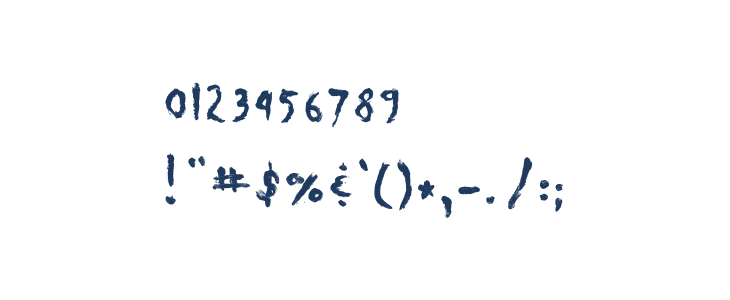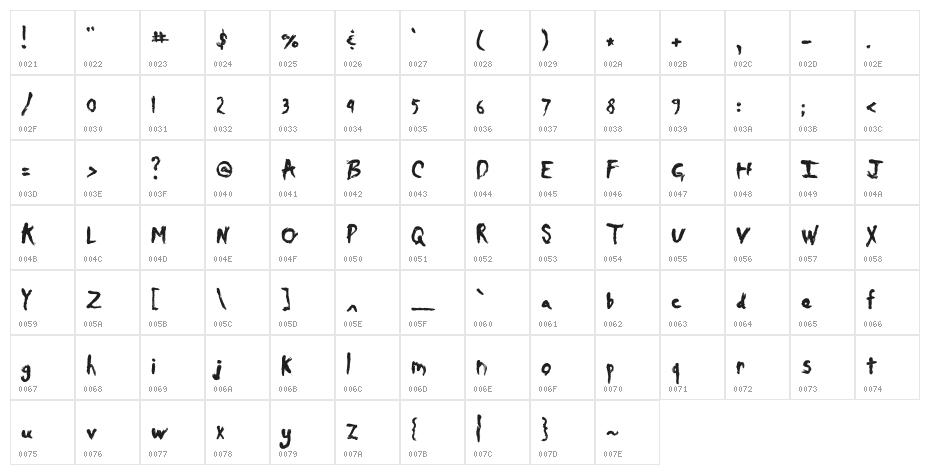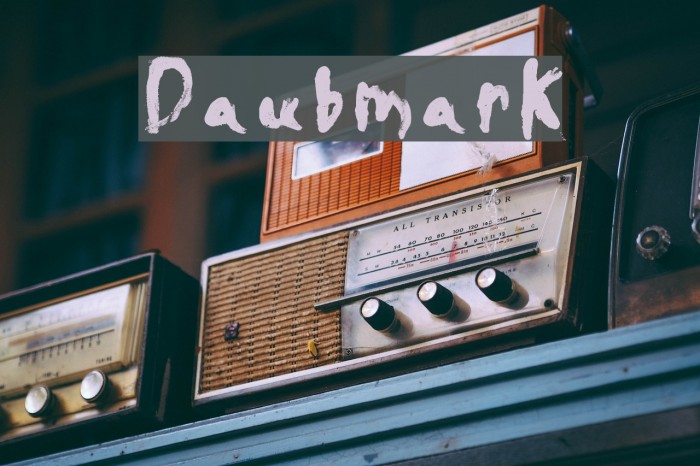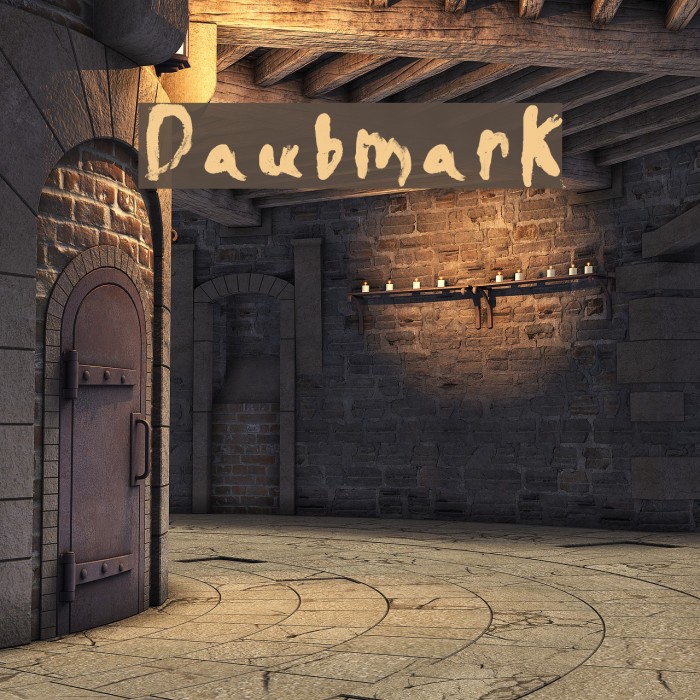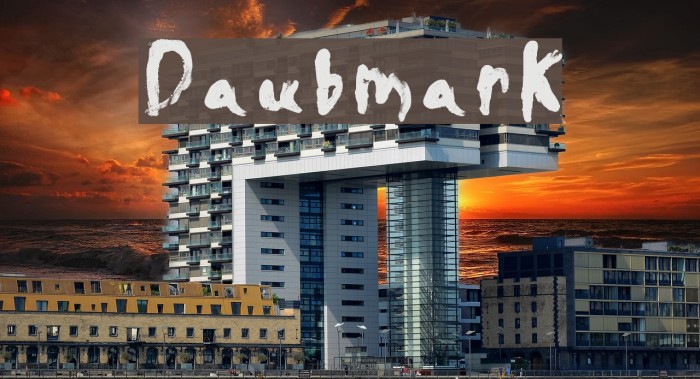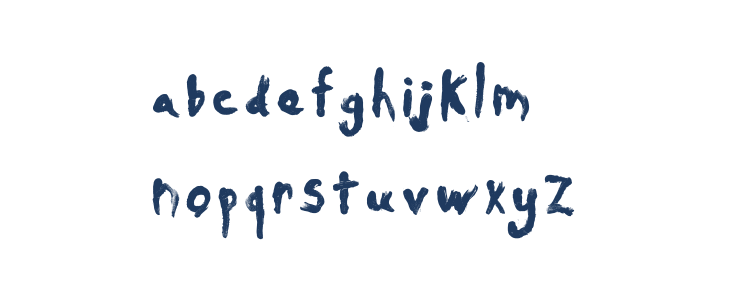
Daubmark Font
Daubmark Description
This font exhibits a bold and expressive style, characterized by its brush-like strokes and uneven edges, giving it a hand-painted appearance. The letters have a dynamic and energetic feel, with varying thicknesses that add a sense of movement and spontaneity. The uppercase and lowercase letters maintain a consistent style, while the numbers and special characters blend seamlessly with the overall design. The font's artistic and informal nature makes it suitable for creative and eye-catching projects.
| Use Case | Logos, Posters, Creative Designs |
| Proposed Projects | Ideal for artistic projects, posters, branding, and any design requiring a creative and dynamic touch. |